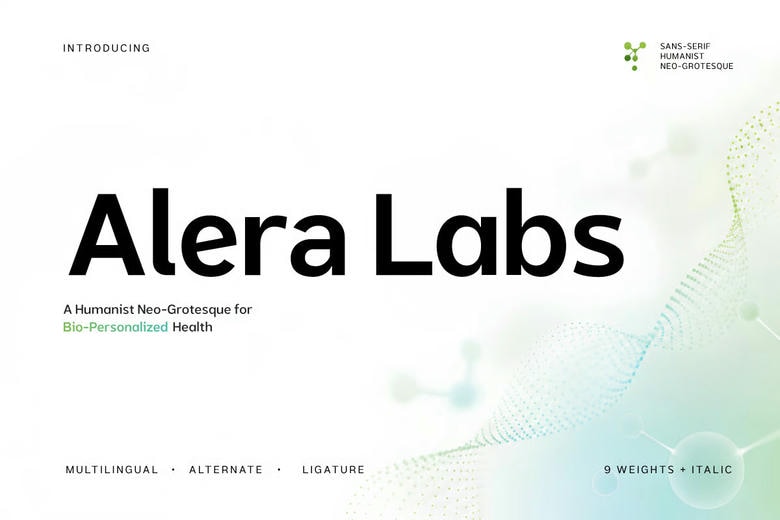
Alera Labs Font
Alera Labs Scientific Humanist is a modern sans-serif font made to give your brand a clean, scientific, and professional look you can trust. Its clear letterforms are easy to read and add a touch of sophistication to brands in health, nutrition, technology, and science.
This typeface is a great fit for bio-personalized nutrition, health tech, scientific supplements, wellness platforms, and daily health tracker apps. Alera Labs also works well for logos, branding, websites, apps, packaging, editorial design, presentations, and marketing when you want a modern and credible look.
Alera Labs Sans Serif Font